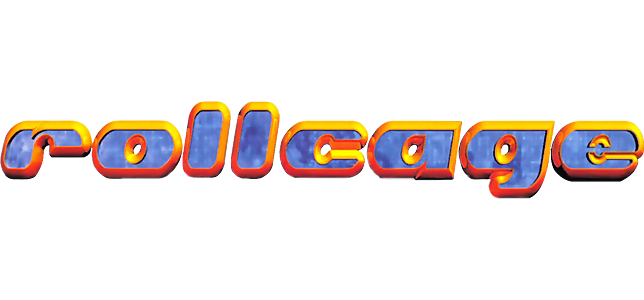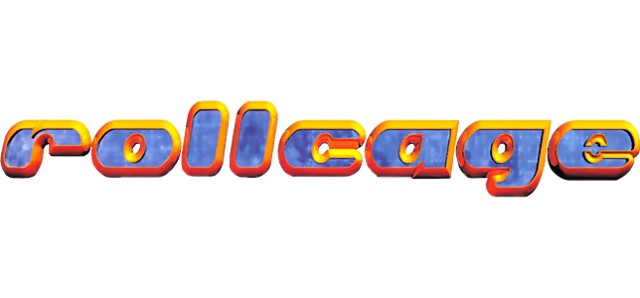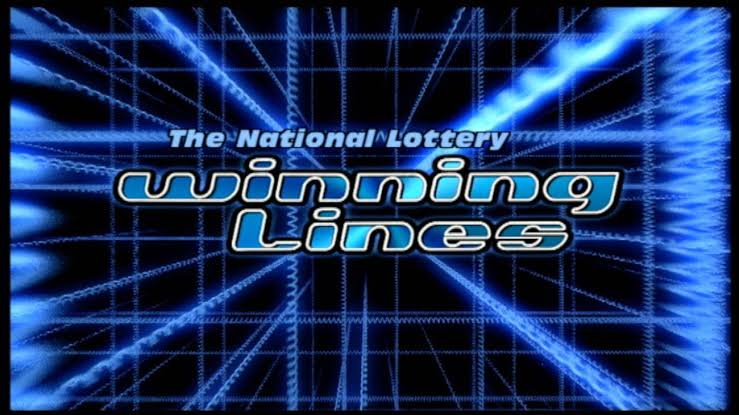
Mysterious futuristic typeface, presumably dated around the time frame between late 1990s-2000s.
So far, the only sources I could find of this typeface existing is in the TV show BBC's The National Lottery Winning Lines and Rollcage video game. Please let me know in the comments.
Perhaps a customization of
Terminal
, by T-26 Foundry?